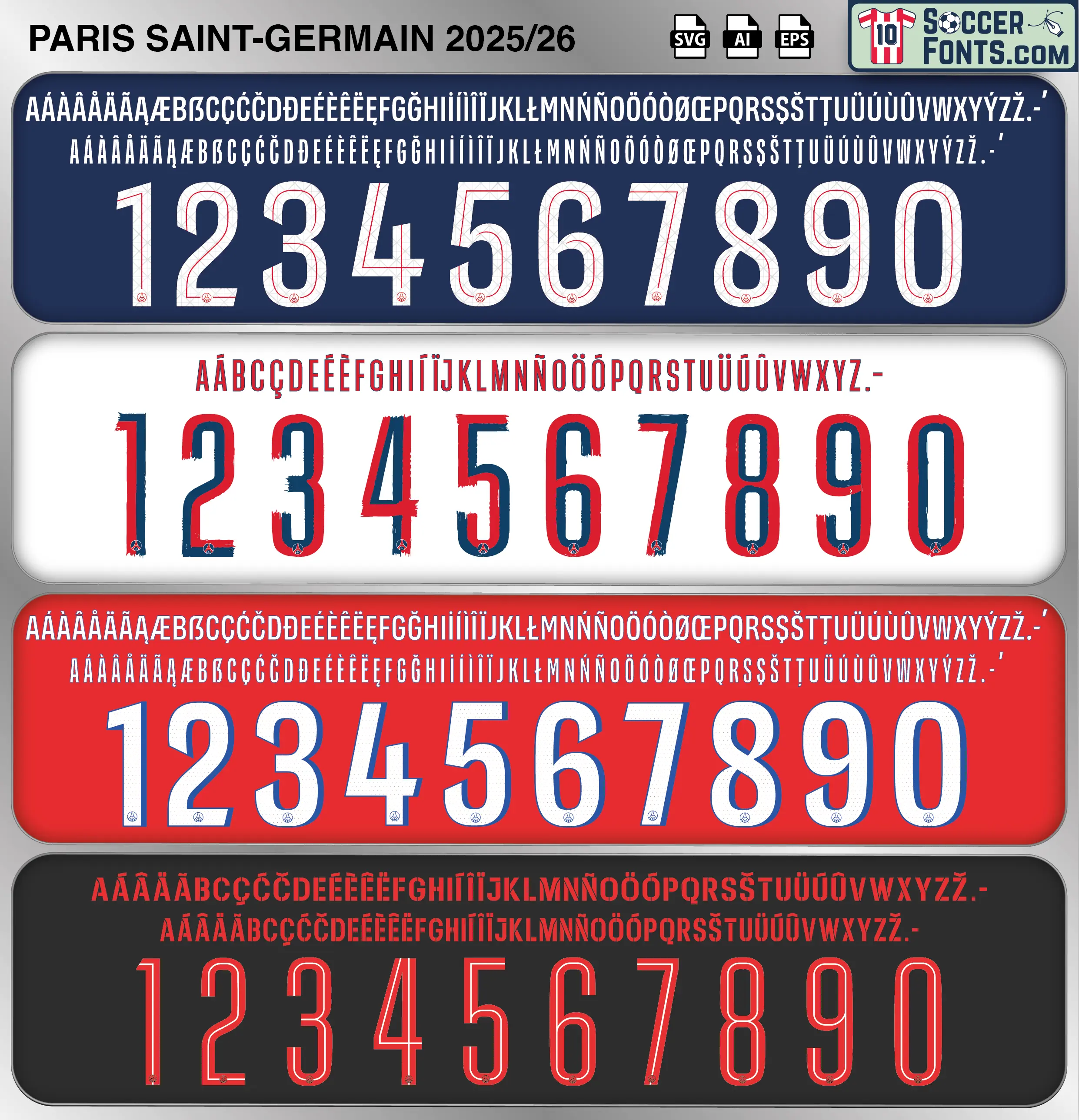
PSG 2025-26 Font
Download the PSG 2025-26 font, an editable soccer jersey lettering design in vector format inspired by the PSG kit style used during the 2025-26 football season. This football font artwork is prepared for football shirt recreations, custom jersey projects, football kit mockups and sports graphic design workflows.
The 2025-26 season opened a new chapter for Paris Saint-Germain following the club’s historic first UEFA Champions League triumph in 2024-25. Luis Enrique’s team entered the campaign as defending European champions, with a squad built around players such as Ousmane Dembélé, Vitinha, Achraf Hakimi, Khvicha Kvaratskhelia, Désiré Doué, João Neves and captain Marquinhos. The PSG 2025-26 font is associated here specifically with the club lettering used for Champions League and European competition shirts rather than the standardized Ligue 1 name and number system. That distinction makes the European version particularly relevant to recreations of PSG shirts connected with the club’s new status among Champions League winners.
The season also represents an important point in PSG’s modern identity. After years of pursuing European success with different generations of global superstars, the club entered 2025-26 having finally reached the summit with a younger, more collective side. The PSG 2025-26 font therefore belongs to the first European campaign in which Paris competed with the Champions League title already part of its history. Matches at the Parc des Princes, major European away nights and shirts worn by the core of Luis Enrique’s squad all form part of this era. For collectors recreating Champions League versions of PSG shirts, the PSG 2025-26 font represents a specific competition context and separates those European kits from the lettering configuration worn domestically in Ligue 1.
PSG 2025-26 Font football shirt vector design